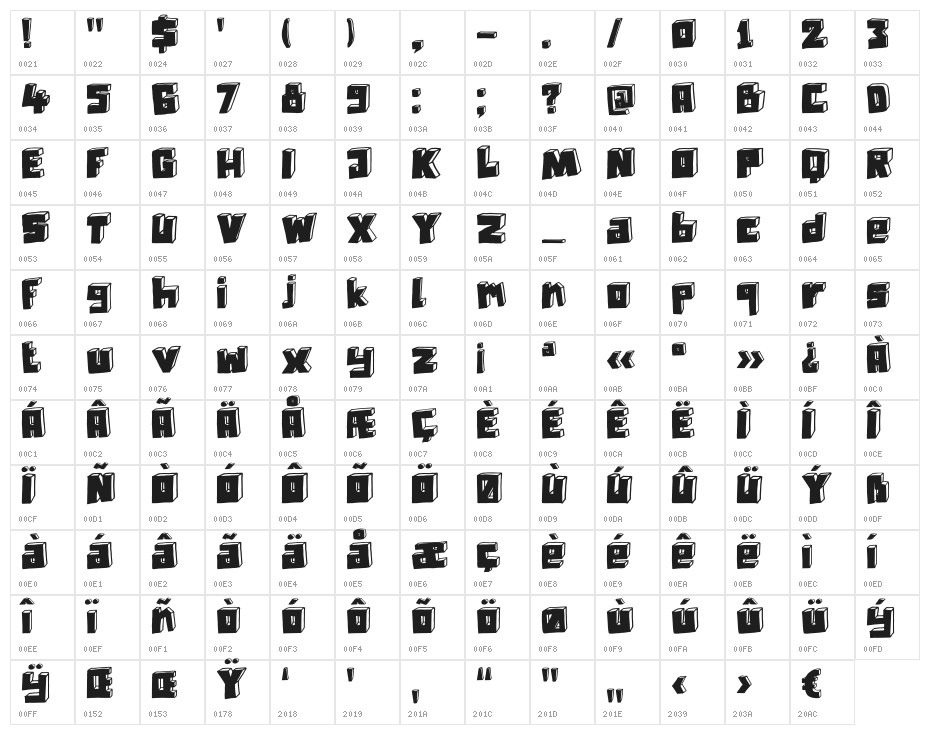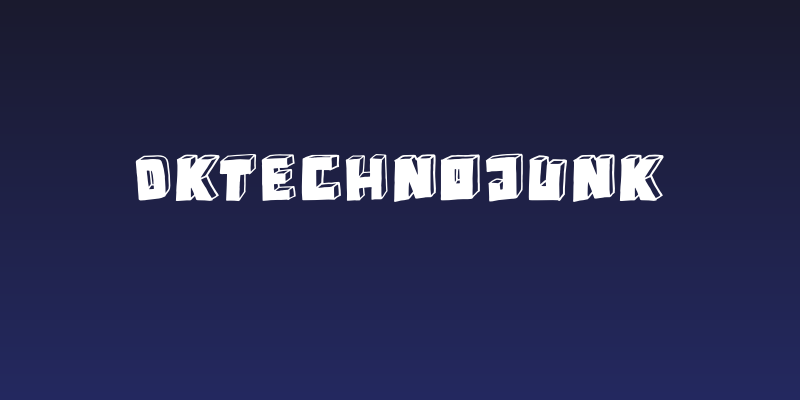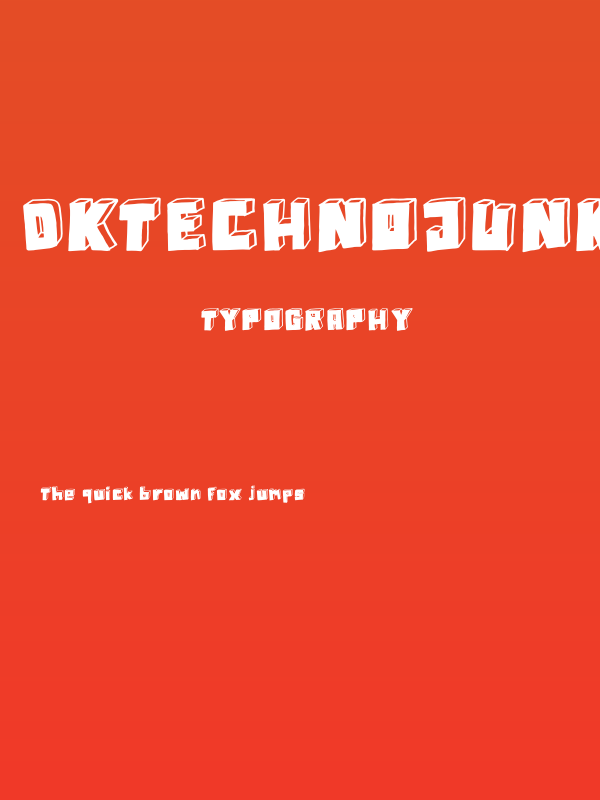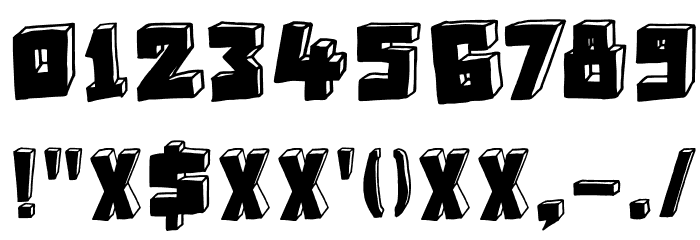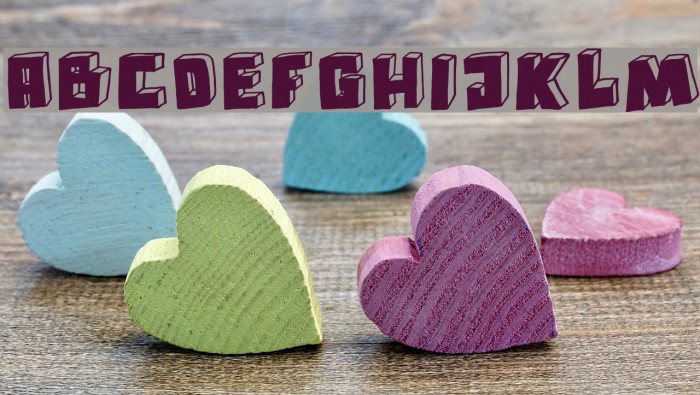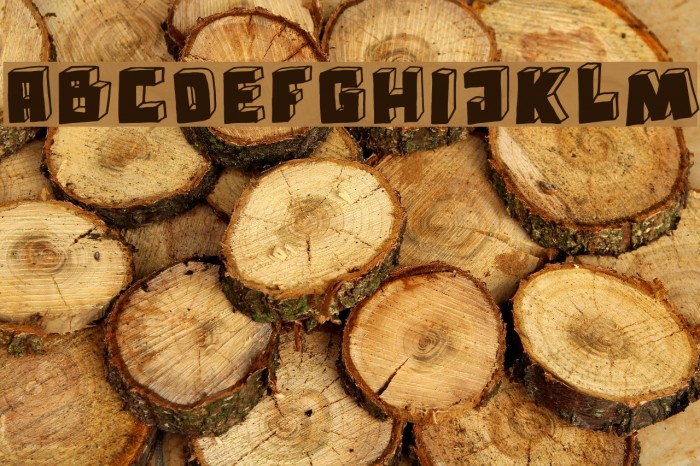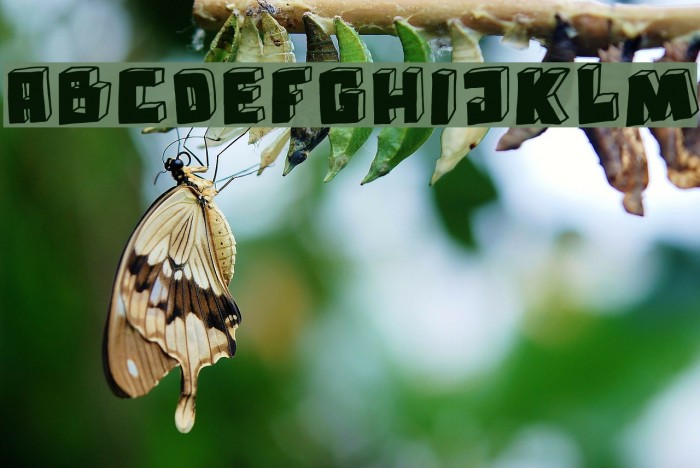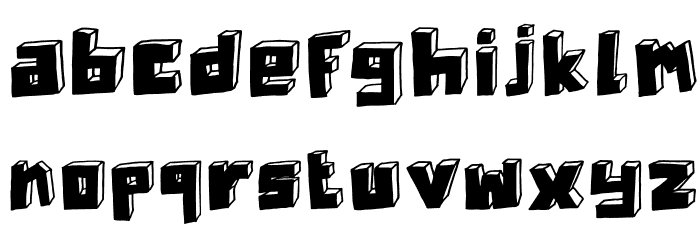
DKTechnojunk Font
This font features a bold, three-dimensional style with a graffiti-like appearance. The characters are blocky and angular, with a hand-drawn quality that gives them an edgy, urban feel. The thick strokes and shadowing create a sense of depth, making the letters pop off the page. The uppercase and lowercase letters maintain a consistent style, while the numerals and special characters complement the overall aesthetic. This font is ideal for projects that require a strong, impactful visual presence.
| Overall Style | Modern, Urban, Edgy |
| Proposed Projects | Ideal for street art-inspired designs, music album covers, posters, and branding for edgy or urban-themed products. |